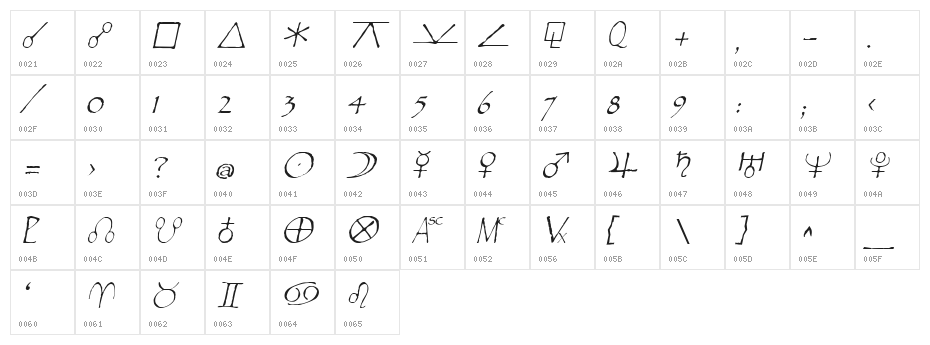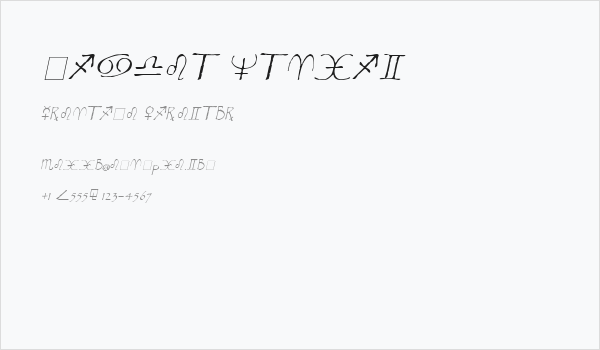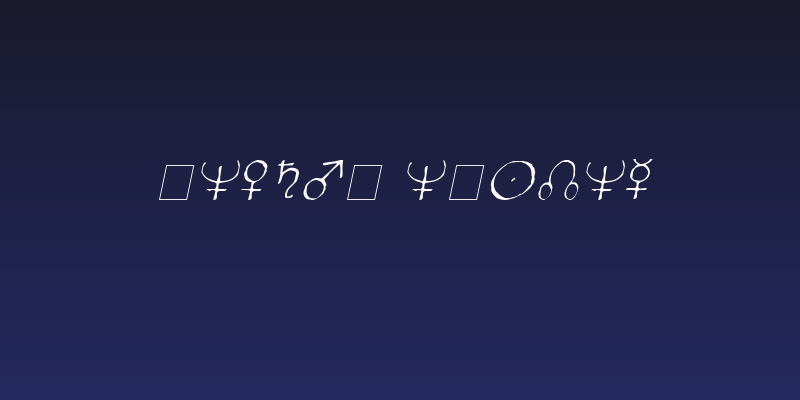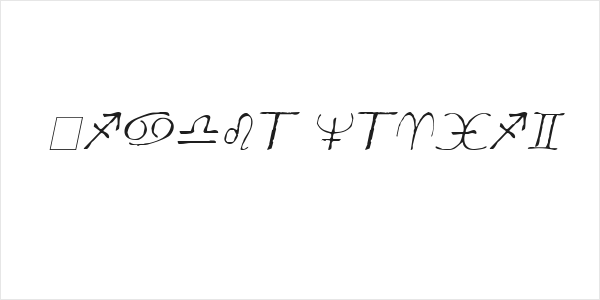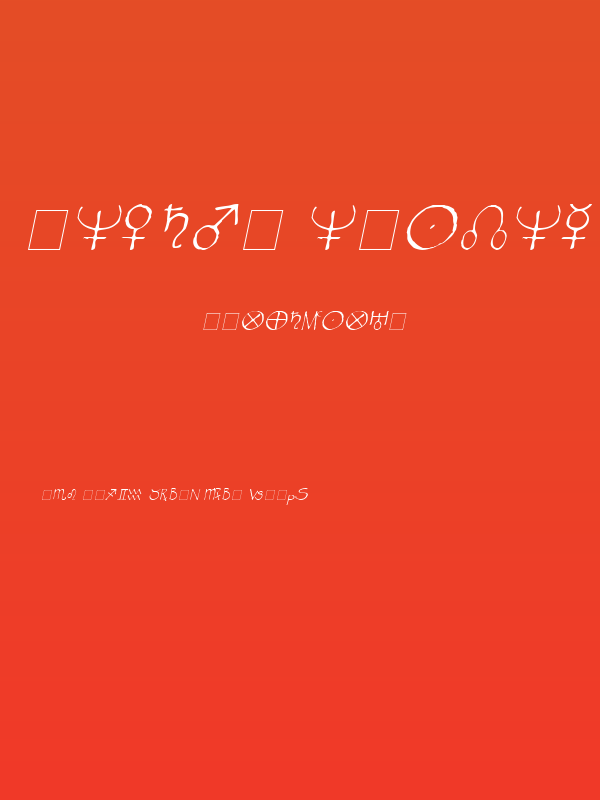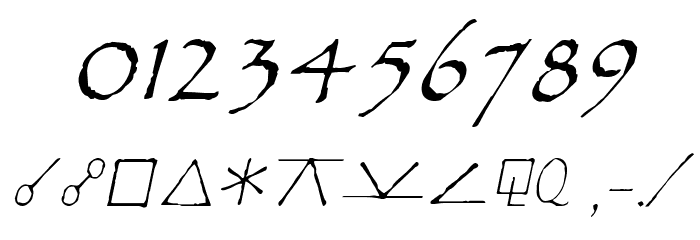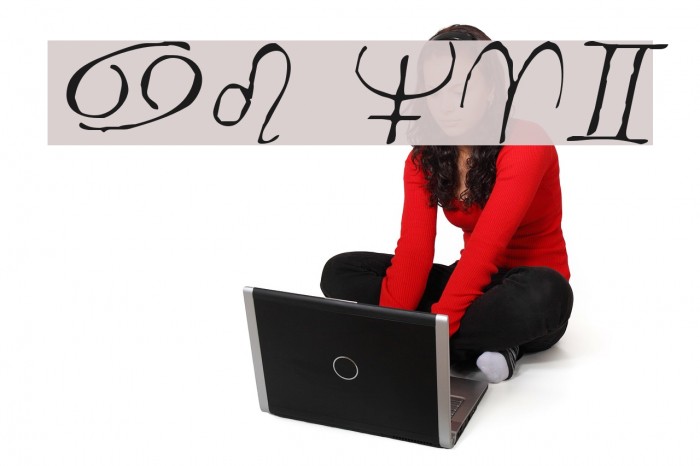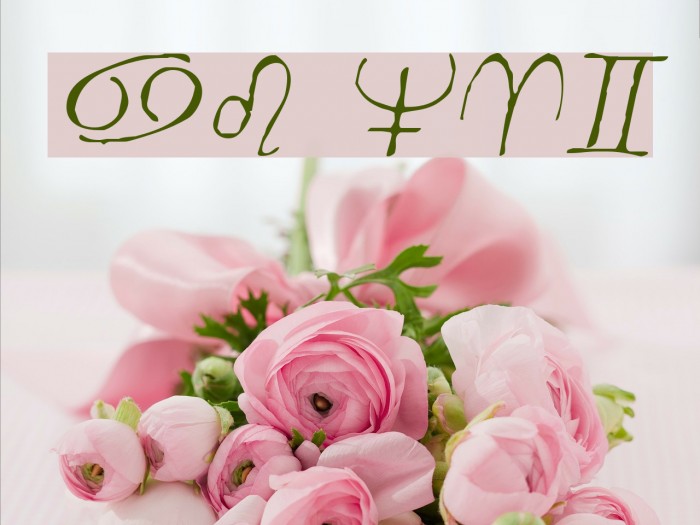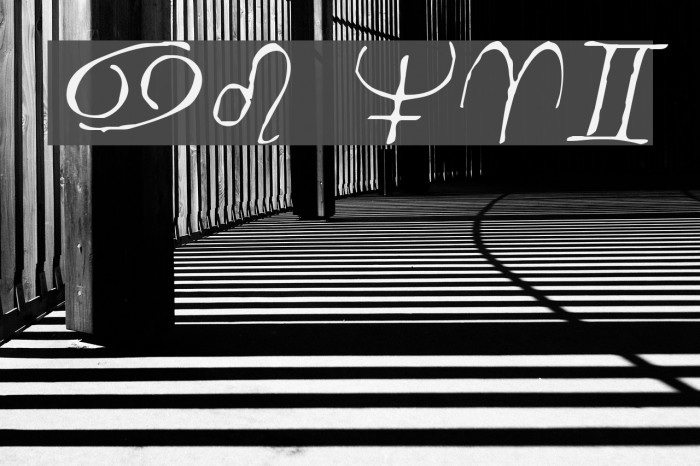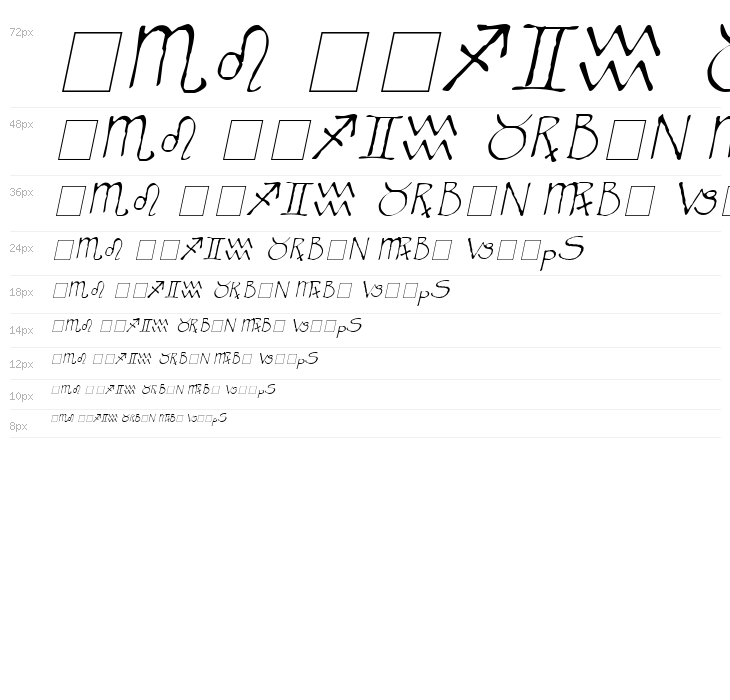
Widget Italic Font
Widget Italic Description
This font features a unique and eclectic design, incorporating a variety of symbols and abstract shapes alongside traditional alphanumeric characters. The style is highly decorative, with each character exhibiting a distinct, artistic flair. The letters and numbers are crafted with a sense of motion and fluidity, suggesting a handwritten or calligraphic influence. The font includes a mix of geometric and organic forms, creating a visually engaging and dynamic appearance. The overall aesthetic is unconventional and creative, making it suitable for projects that require a bold and artistic touch.
| Overall Style | Artistic, Abstract, Decorative |
| Use Case | Logos, Posters, Artistic projects |
| Proposed Projects | Ideal for artistic projects, creative branding, unique posters, and decorative invitations. |